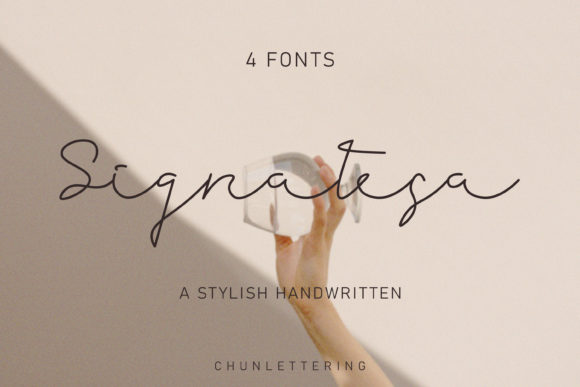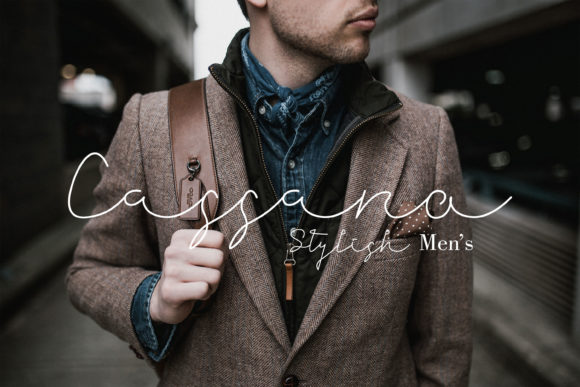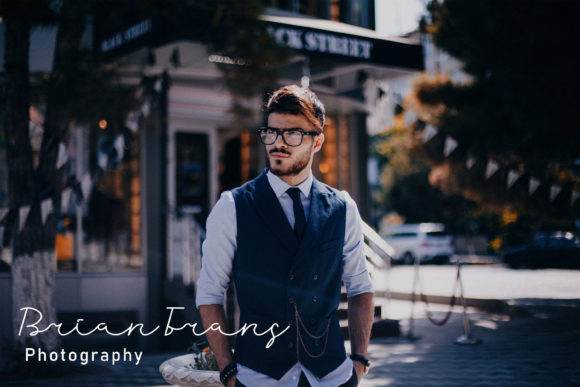
Signatesa Font
About Signatesa Font
Introducing “Signatesa,” a clean signature handwritten font meticulously crafted with precise strokes in each glyphs character. This font is perfect for various branding projects, including logos, t-shirt printing, and creative products. With its attention to detail, “Signatesa” brings a unique and extraordinary look that stands out in a variety of contexts.
The clean and signature style of “Signatesa” adds a touch of sophistication and individuality to your designs. Whether you’re working on a logo, apparel, or any creative project that requires a distinctive and elegant touch, this font is designed to shine.
Imagine “Signatesa” as the ideal typeface to elevate the visual appeal of your branding endeavors. Let it make a statement on t-shirts, create memorable logos, or enhance the overall aesthetic of your creative products.
In summary, “Signatesa” is more than just a font; it’s a clean signature handwritten script crafted with precision to bring a unique and extraordinary look to your projects. Embrace its versatility, and let it be the font that adds a touch of sophistication and individuality, making your creations stand out in various contexts.